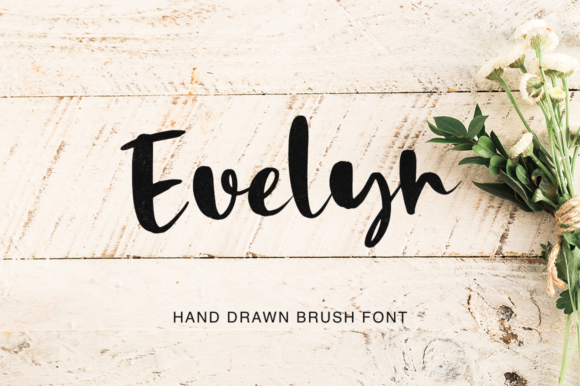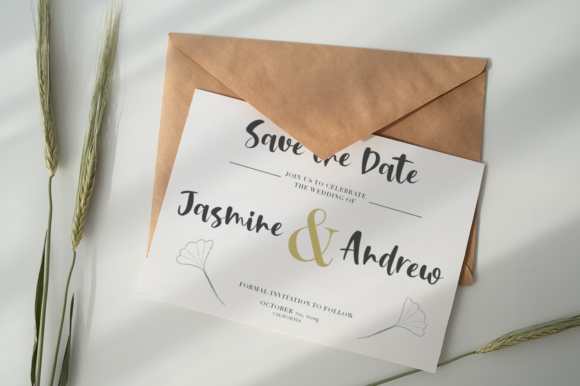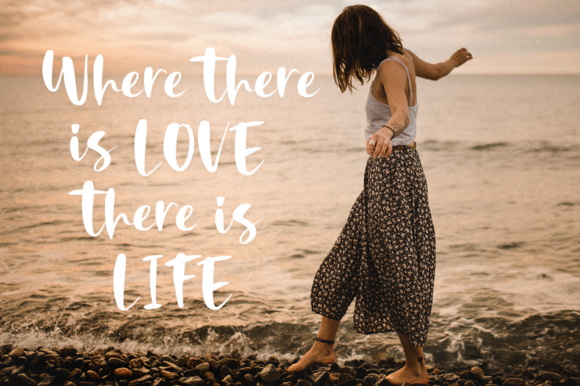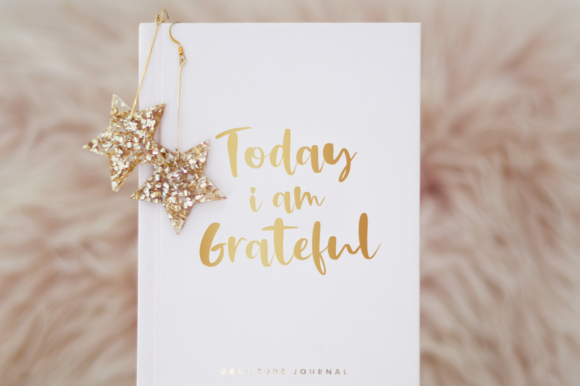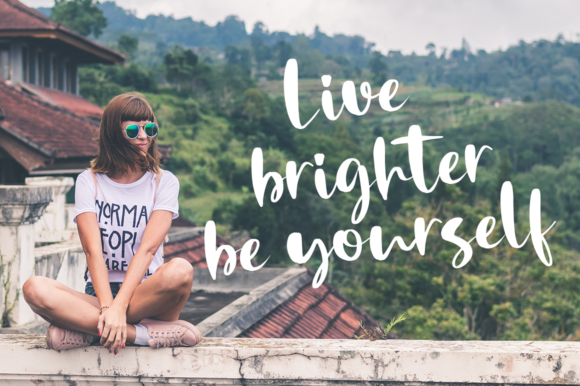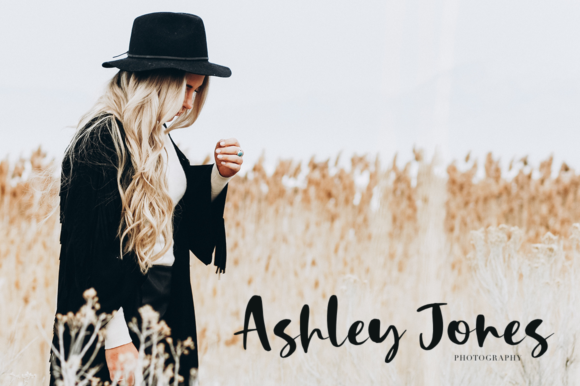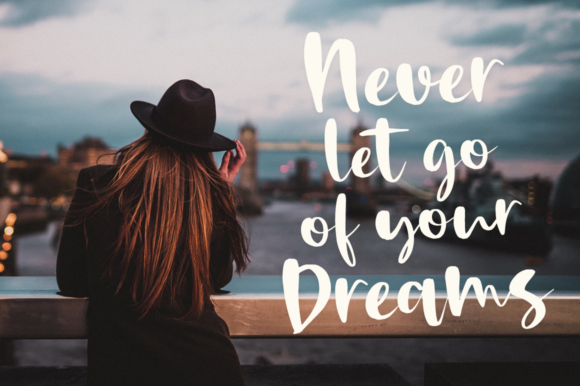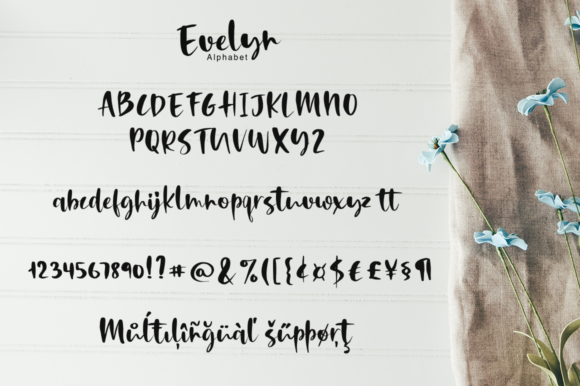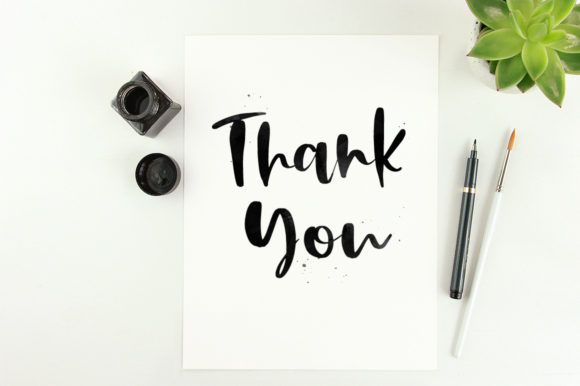
HomeScript FontsEvelyn Font Script Fonts Evelyn Font FacebookXPinterestWhatsApp Evelyn Font Poster 2 Evelyn Font Poster 3 Evelyn Font Poster 4 Evelyn Font Poster 5 Evelyn Font Poster 6 Evelyn Font Poster 7 Evelyn Font Poster 8 Evelyn Font Poster 9 About Evelyn Font Evelyn is a cute and bold script with an authentic vibe. Get inspired by its modern elegance. DOWNLOAD ON CREATIVE FABRICAThis font is sold and delivered by Creative Fabrica. Font Canyon may earn a commission if you buy through this link. People also explored Malia Love You Font Peach Handmade Font Yonadesya Font Malefoy Font Matillda Font Belmondela Font Trending Font Simple Home Font Farmhousebarn Font 315 0 TagsEvelyn Font Previous articleCherrydorry FontNext articleSweengly Font LEAVE A REPLY Cancel reply Comment: Please enter your comment! Name:* Please enter your name here Email:* You have entered an incorrect email address! Please enter your email address here Website: Save my name, email, and website in this browser for the next time I comment. Personal Use Free Brandon Bromley Personal Use Free Read more about this font The Fourth Avenue Personal Use Free Read more about this font Boronic Personal Use Free Read more about this font Bally Girl Personal Use Free Read more about this font BLOG Modern Sans-Serif Fonts That Brands Love in 2025 In 2025, modern sans-serif fonts remain a top choice for brands looking to project clarity, professionalism, and... Where to Buy American Fonts Online in 2024 Using Fonts in Digital Marketing: Tips to Strengthen Your Brand Identity Top 7 Google Fonts Alternatives for Faster and Privacy-Friendly Web Design (2025)